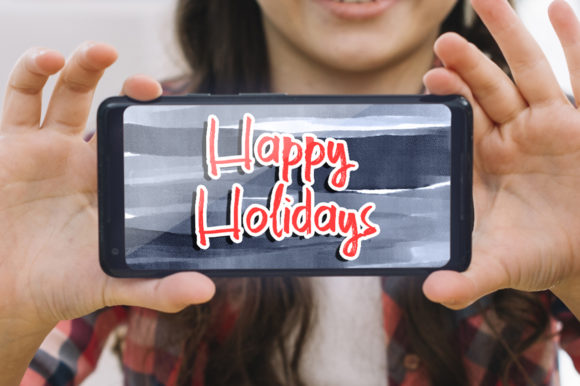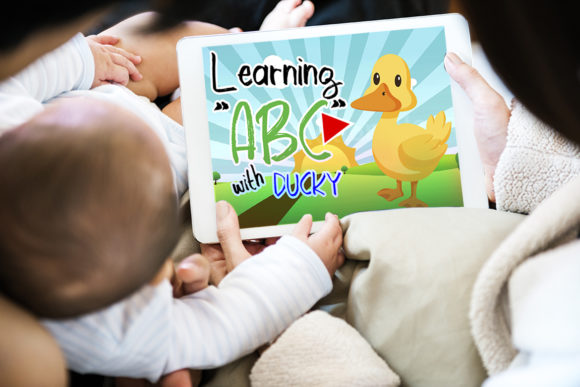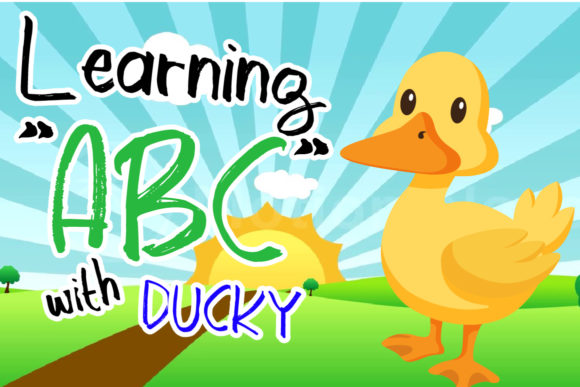
Unlock the Magic of Astrokids Font
Have you ever been brainstorming a new project, and suddenly, the perfect font pops into your head? That’s exactly what happened to us when we stumbled upon the Astrokids Font. Its playful, handwritten style instantly sparked a sense of creativity and joy, making us want to dive in and start designing.
Astrokids Font is a fun and whimsical typeface designed to bring a smile to your face. Its purpose is to add a touch of personality to your designs, making them stand out from the crowd. Whether you’re a seasoned designer or just starting out, this font is sure to inspire you to create something truly special.
As a valuable asset for designers, the Astrokids Font offers endless possibilities for creative expression. Its unique style and charm make it perfect for a wide range of projects, from children’s books to marketing materials and beyond.
- Unique Characteristics: Astrokids Font features a unique, playful design with a mix of modern and futuristic elements, making it perfect for creating eye-catching and engaging designs.
Astrokids Font Review
I recently had the chance to work with the Astrokids Font, and I must say it’s a unique and playful addition to any design project. ✨ One of the things that stood out to me was the versatility of the font. It can range from being cute and childlike to more futuristic and space-inspired, depending on the context.
Here are some of the things that work well with Astrokids Font:
- ✨ Highly customizable: With its wide range of weights, it’s easy to find the perfect fit for any design project.
- ✨ Unique character set: The font includes a variety of special characters, including stars, planets, and spaceships, which can add a fun and creative touch to designs.
- ✨ Easy to read: Despite its playful nature, the font is surprisingly easy to read, even at smaller sizes.
- ⚠️ Limited language support: The font may not be suitable for designs that require extensive text in non-Latin languages.
- ⚠️ May not be suitable for formal designs: While Astrokids Font can be a great choice for more casual designs, it may not be the best fit for formal or professional projects.
Overall, I think Astrokids Font is a great addition to any designer’s toolkit. With its unique features and high level of customization, it’s a great choice for projects that require a touch of creativity and whimsy.
Astrokids Font is perfect for creating whimsical and playful designs. Use it for:
- Branding and marketing materials for kids’ products
Remember to experiment with different font sizes, colors, and styling options to get the most out of Astrokids Font.